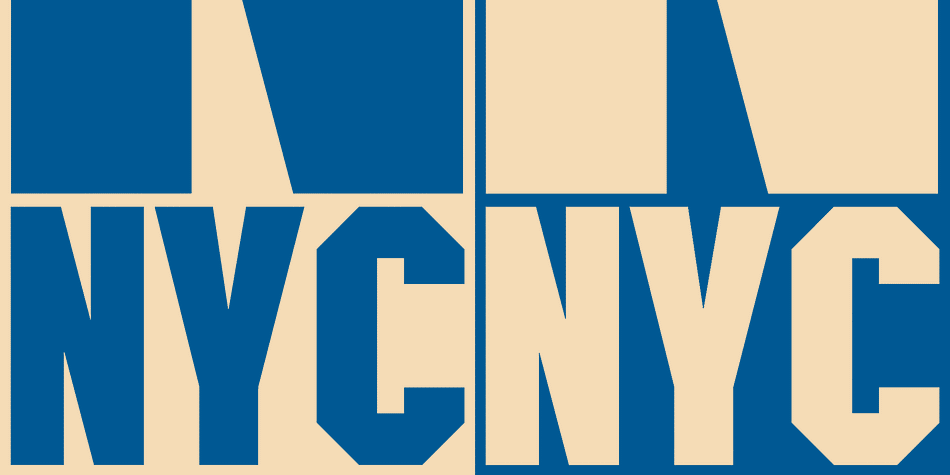
NYC
NYC is a display sans font family. This typeface has two styles and was published by K-Type.
Homage to our favorite city, an English take on American brash.
Chunky college style font with a nifty lowercase.